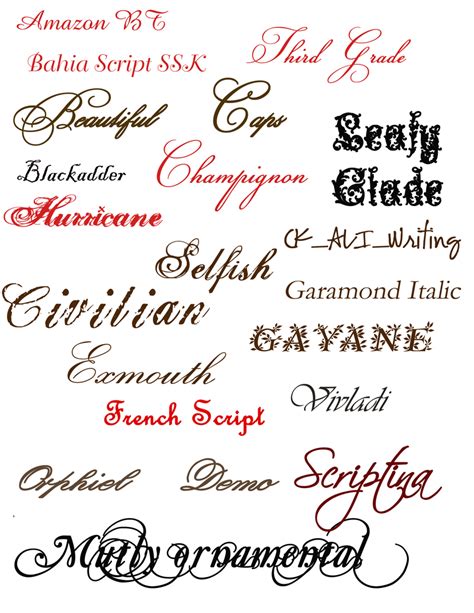
Tattoo Fonts With Designs, 10+ amazing tattoo tutorials from envato. Fonts for tattoos, drawings and decorations.
You can make tattoos with our tattoo app very fast. Hero beam tattoo is a decorative vintage typeface, remastered for a modern performance. For such tattoo designs, a calligraphy font will be ideal.
Picking a font for your next tattoo is a very important decision. 20+ best cursive tattoo fonts for great designs all in all, the 20+ cursive tattoo fonts are all great finds, each designed to help you communicate to your respective audiences. Whether branding initiatives or seasonal marketing campaigns, there’s a lot you can create when you make clever use of cursive tattoo fonts that carry your style and narrative. There are actually tons of tattoo fonts for men that can make or break tattoo designs.
Tattoolettering.net allows you to design your own tattoo with hundreds of lettering styles and tattoo fonts. The above tribal tattoo is a combination of alphabets and some tribal designs also. Get this one tattooed on your arm so you can look at it every day. The following tool will turn your desired text into images using tattoo fonts. Looking for.
Generate designs with tattoo fonts. This is not just a gallery! Fonts for tattoos, drawings and decorations. Below is a collection of tattoo fonts. Tattoo font is a simple font which proves to be quite useful while designing the tattoo.
Star typeface tattoo font is classic with 8 creative styles great for modern designs, but also retro with regular and grunge options to choose from. The above tribal tattoo is a combination of alphabets and some tribal designs also. The bigger font size allows you to picture how the font will look inside a tattoo quickly and easily. Tattoo.com helps.
For such tattoo designs, a calligraphy font will be ideal. Chicano is a stylish font that comes with a design inspired by classic tattoo designs. Where this font really stands out, however, is with the unique number characters if you want to get a code, date or number tattoo design down. Do not miss our most special fonts for your.
Tattoo.com helps you narrow down results to art created by tattoo artists near you. Font designs mesh well with the human psychology, and most people find artistic text to be a great compliment to tattoo art. We have come up with as many as 21 tattoo lettering fonts, styles & designs to ensure a versatile gallery for our visitors. The.
Free fonts often have not all characters and signs, and have no kerning pairs (avenue ↔ a venue, tea ↔ t ea). Get this one tattooed on your arm so you can look at it every day. Whether branding initiatives or seasonal marketing campaigns, there’s a lot you can create when you make clever use of cursive tattoo fonts that.